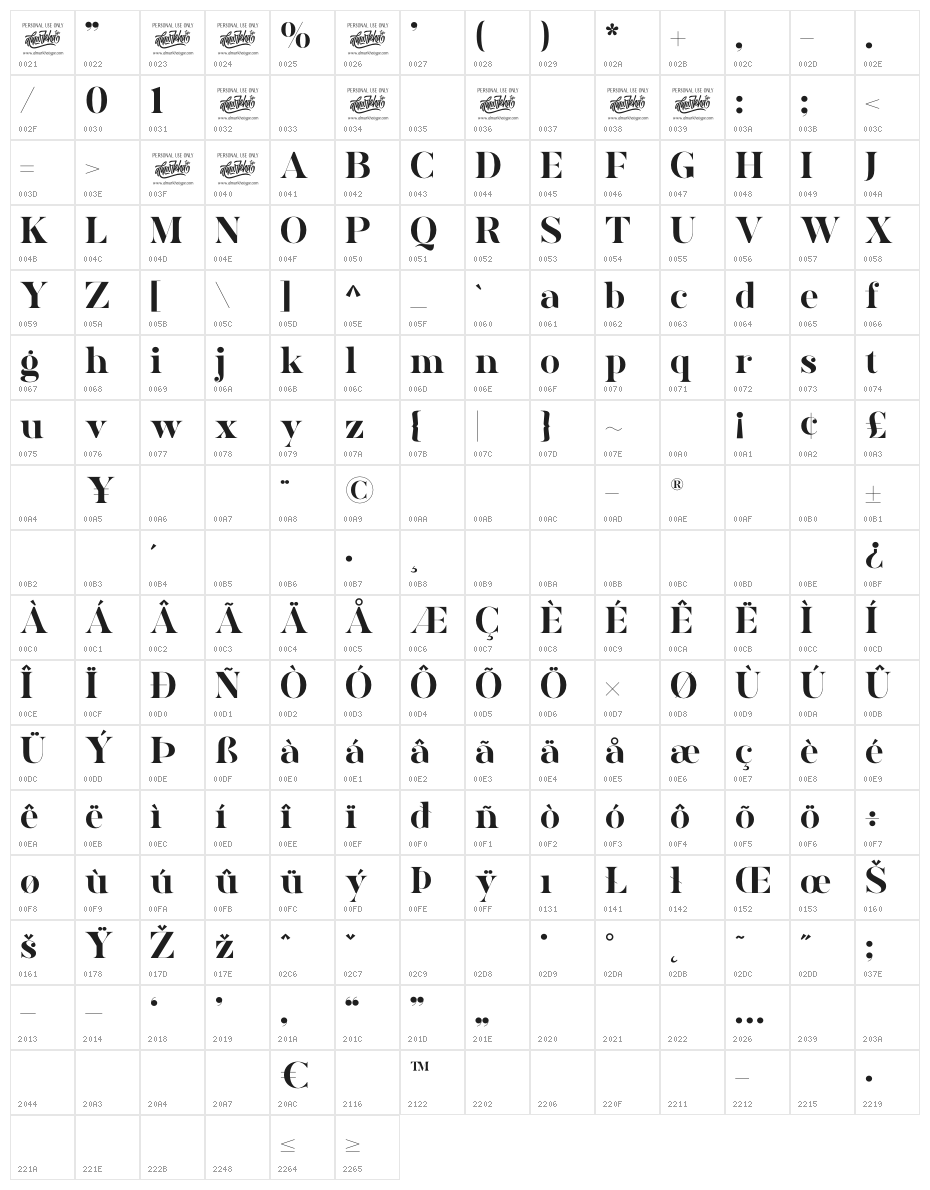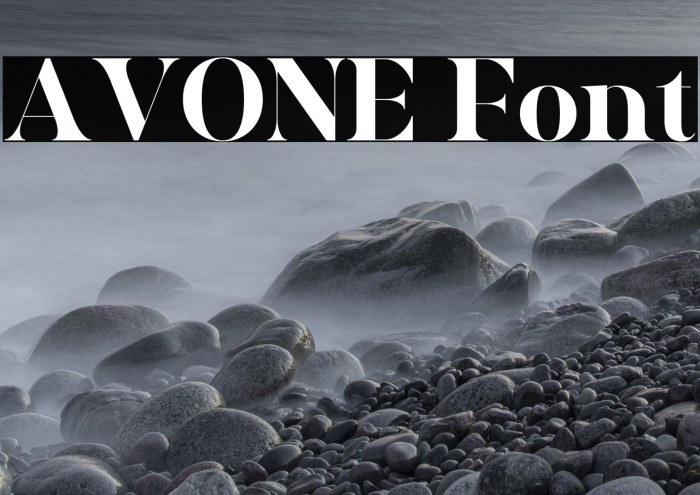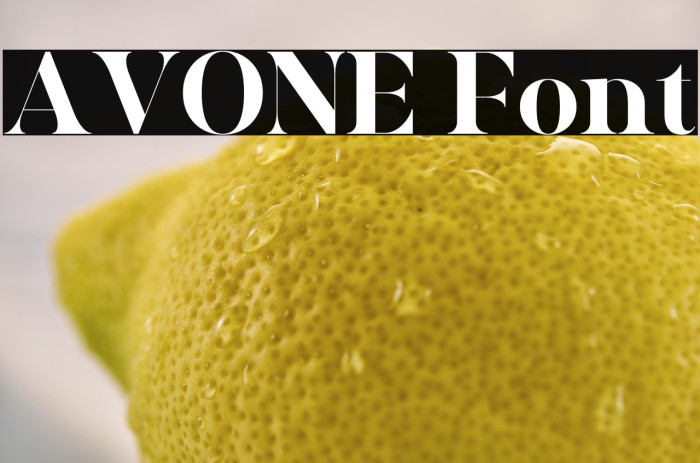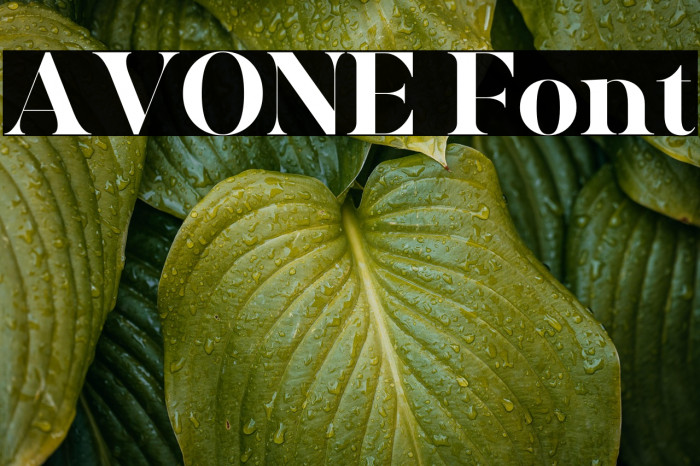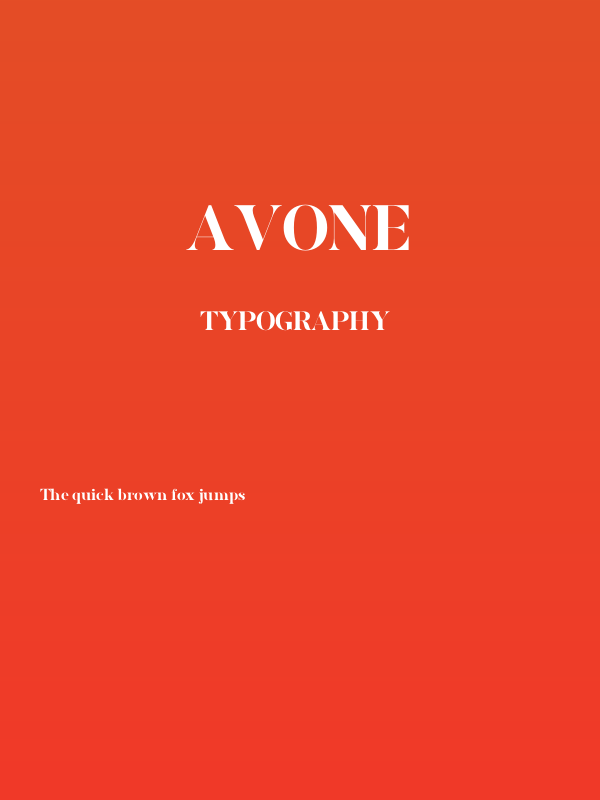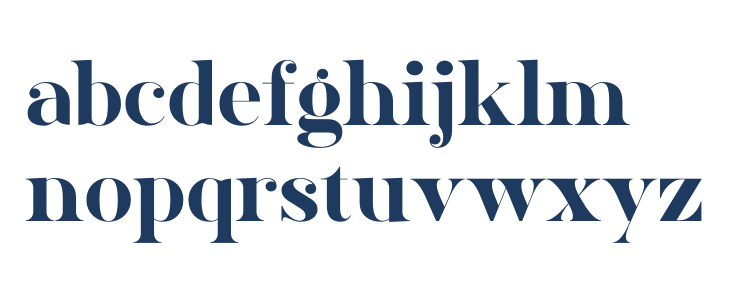
AVONE Font
AVONE Description
This font features a bold and striking design with high contrast between thick and thin strokes, giving it a dramatic and elegant appearance. The uppercase letters are particularly distinctive, with sharp serifs and a strong vertical emphasis. The lowercase letters maintain a consistent style, with rounded forms and a slightly playful touch, especially noticeable in characters like 'g' and 'y'. The numerals are equally bold, ensuring they stand out in any context. Special characters are designed to complement the overall aesthetic, maintaining the font's bold and sophisticated look.
| Overall Style | Classic |
| Proposed Projects | Ideal for luxury branding, editorial design, high-end packaging, and elegant invitations. |